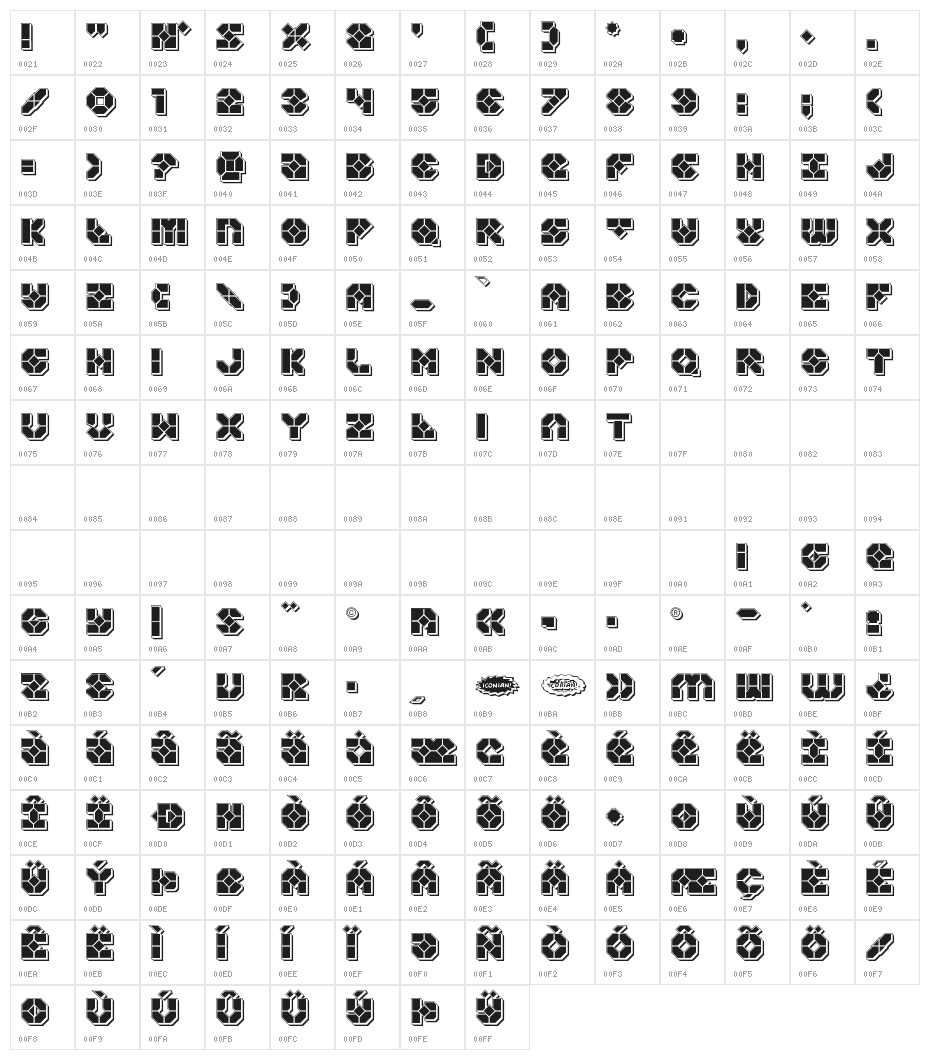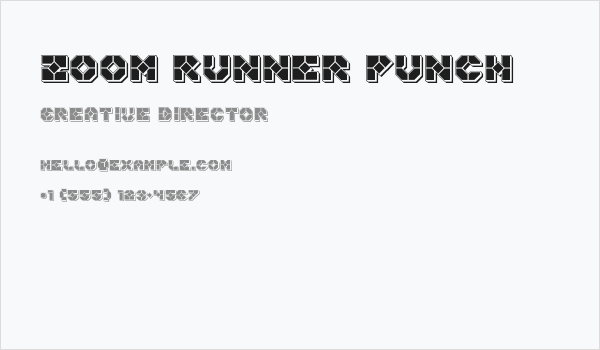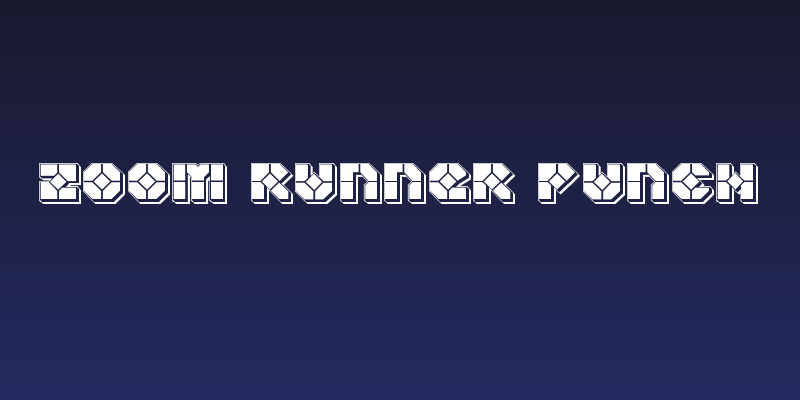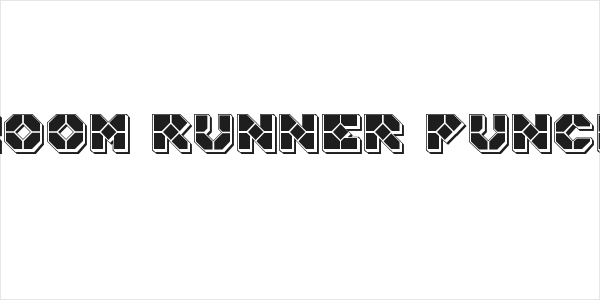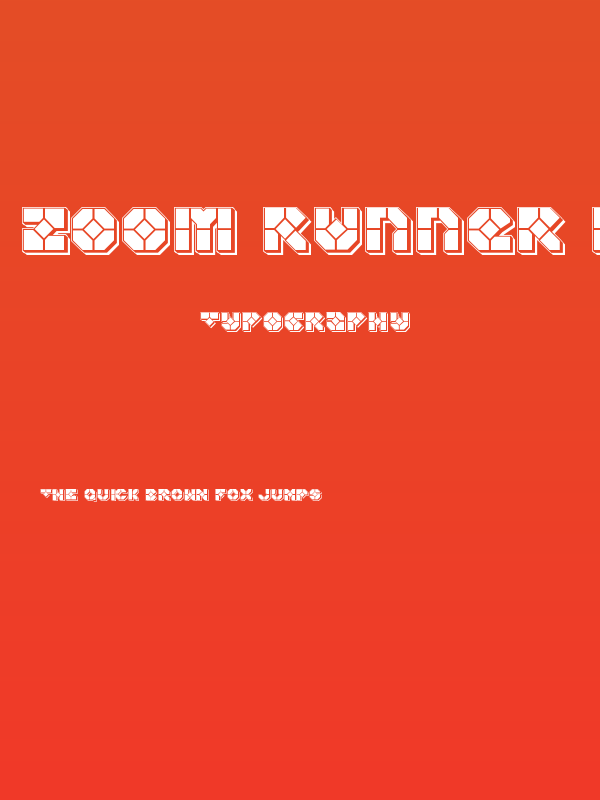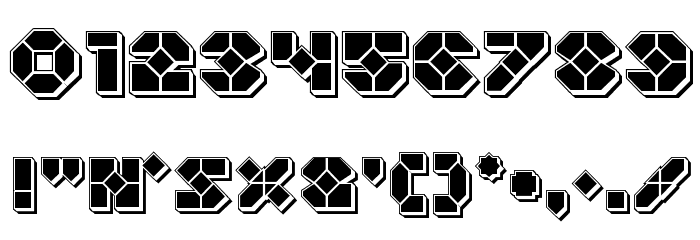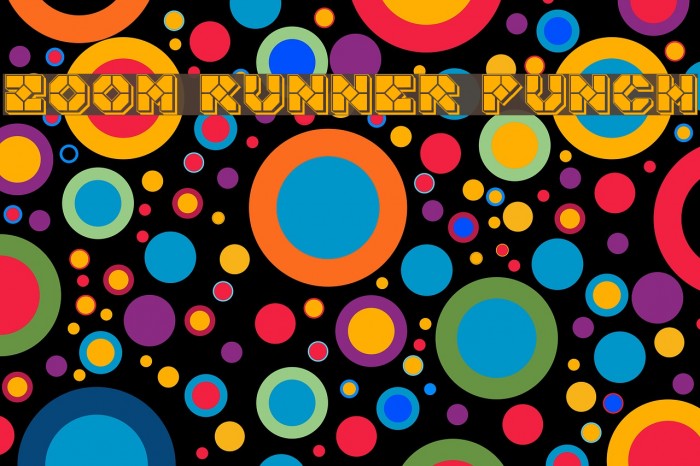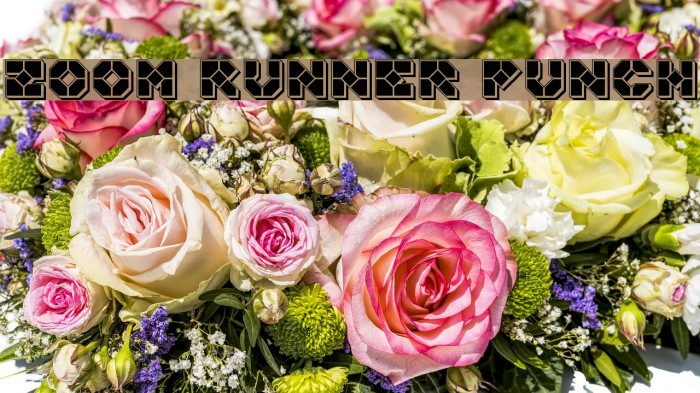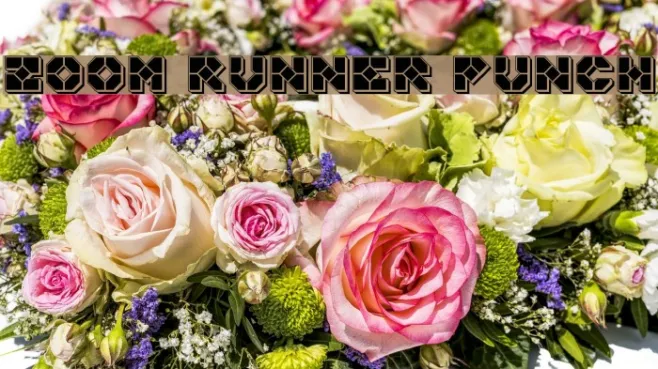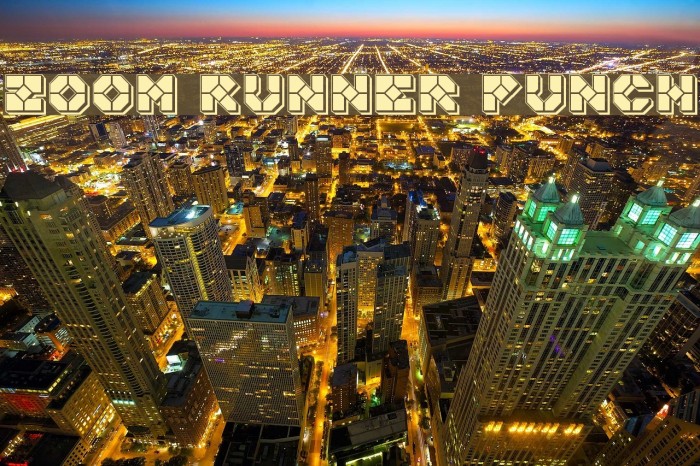
Zoom Runner Punch Font
Zoom Runner Punch Description
This font features a bold, geometric design with a futuristic and digital aesthetic. Each character is constructed with a series of interconnected shapes, creating a blocky and angular appearance. The use of negative space within the letters adds a unique visual interest, making the font stand out. The characters are uniformly wide, giving the font a monospaced feel, although it is not strictly monospaced. The overall style is modern and tech-inspired, suitable for projects that require a strong, impactful visual statement. The uppercase and lowercase letters share a similar design, maintaining consistency across the alphabet. Numbers and special characters are also included, following the same geometric pattern.
| Use Case | Logos, Headlines, Posters |
| Proposed Projects | Ideal for tech-related branding, video game titles, sci-fi posters, and digital media. |